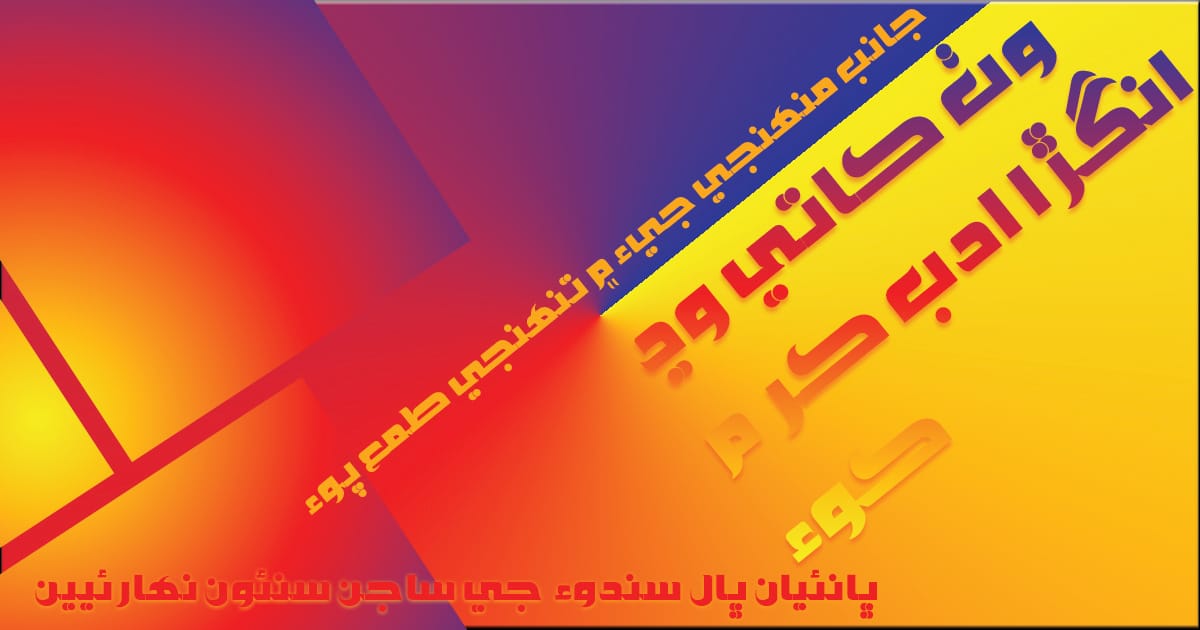
Sarem Thatto
Updated Font
Sarem Thatto is an updated version of my Sindhi Font Sarem Thatto for your writings particularly for the fancy headings. It confirms the latest Unicode standards also. Sarem Thatto is free of charge to download and install on your computer.